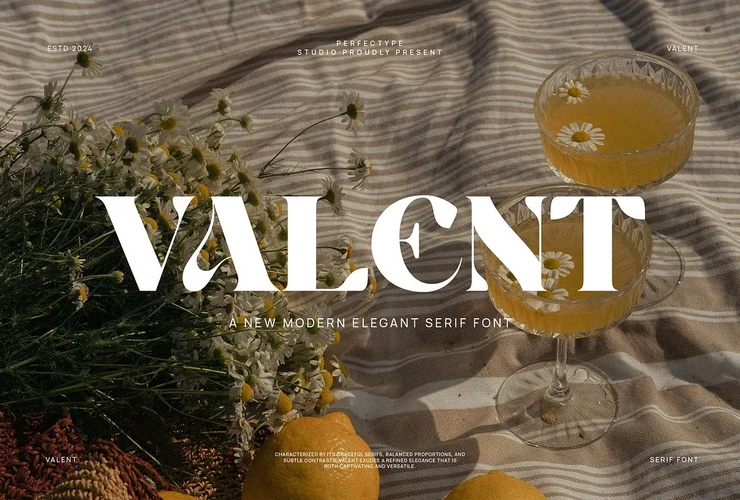
Introducing Valent Retro Serif Font by Perfectype
Discover Valent Retro Serif Font, an elegant and classy typeface designed by Perfectype. This serif font exudes sophistication and luxury, making it the perfect choice for a wide range of design needs. Whether you’re working on branding projects, logos, social media posts, advertisements, labels, product packaging, photography, wedding designs, watermarks, invitation product designs, or stationery, Valent Retro Serif Font offers the perfect blend of style and readability.
Key Features of Valent Retro Serif Font
Valent Retro Serif Font is meticulously crafted to provide designers with a versatile and visually appealing typeface. Here are some of its standout features:
Elegant and Classy Design: Perfect for creating a luxurious and sophisticated look.
Beautiful Ligatures and Alternates: Equipped with many unique ligature and alternate options to enhance your designs.
High Readability: Ensures your text is easy to read, even at smaller sizes.
Enhance Your Designs with Valent Retro Serif
Valent Retro Serif Font is designed to bring a touch of elegance and class to your projects. Its luxurious style makes it suitable for a wide range of applications, ensuring your designs stand out with a sophisticated appeal. The font’s unique ligatures and alternates add an extra layer of creativity to your design toolkit.